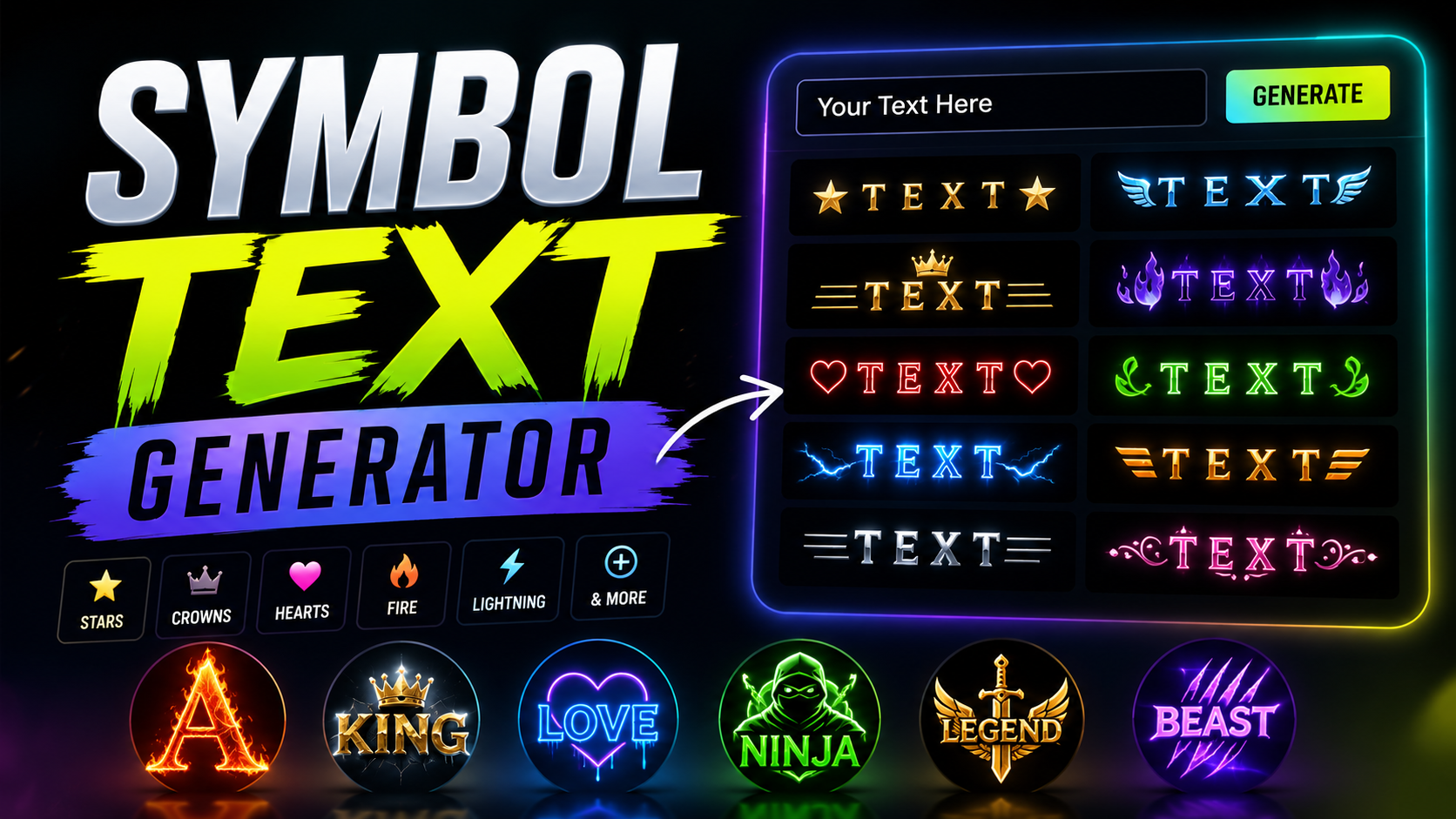
Type your text below to instantly generate cool, stylish text with symbols, emojis, and unique borders.
Stumbling upon stylish text on social media taught me more about unicode character encoding than any manual ever could. A generator quietly converts regular text into bold, italic, or script forms across platforms and devices.
The universal character encoding standard supports tens of thousands of characters, beyond old 256 characters limits. This range enables copy and paste of unicode symbols through any font, spanning symbol sets across devices and platforms.
The symbol text generator operates through Unicode — a character encoding international standard that assigns each character a unique numerical value. Simply type into the input box, pick font styles, and copy results from real-time previews.
Behind fancy text styles is JavaScript mapping Latin alphabet letters to Unicode characters — converting regular text into distinct symbol sets, ensuring devices on every platform seamlessly render your visually appealing, expressive text with full compatibility.
Type your text into the text box, scan hundreds of styles including bold, italic, cursive, old english, and monospace, copy the result, and paste it across social media or documents with your font style chosen.
Experienced users strategically switch between text styles — carefully selecting script for creative expression, underlined for emphasis, or sans-serif — to keep messages highly readable, then directly copy and paste results into chats, notes, or forums seamlessly.
Most creators underestimate how aesthetic fonts and text symbols deeply transform ordinary posts. Styling text deliberately signals effort, builds identity, and triggers real curiosity that pushes readers to engage rather than scroll past your content.
Experienced strategists know that unique fonts and carefully chosen symbols do more than decorate—they format communication with clear intention. Characters breaking visual monotony actively increase dwell time, comments, and shares across every major platform.
Digital art fully transforms when text symbols meet decorative elements. Designers leverage unicode symbols, geometric shapes, and intricate designs for aesthetic purposes. Combining characters with special symbol blocks creates remarkable visual compositions in creative projects.
Text art, ASCII, and text picture effectively redefine digital art expression. Aesthetic symbols, cute symbols, and keyboard symbols add text styling depth. Using a font generator, designers craft decorative characters that elevate creative visual projects.
Messaging apps like WhatsApp, Telegram, and Facebook Messenger changed how online messaging feels. A stylish message using symbol texts, emoticons, or fancy text turns an ordinary chat into a memorable greeting that reflects real personality.
I’ve seen Discord servers where cursive letters and emoji symbols drive stronger interactions than plain text messages. Special characters add attention, boost social media posts reach, and maintain consistency across SMS, iMessage, and Signal conversations.
Personal expression defines modern branding. A stylish name with fancy fonts on LinkedIn or Instagram bios creates first impressions that reflect professional identity, making stand out profiles that carry real visual appeal and elegant character.
Messaging and business communications grow much stronger when symbols and bold font reinforce a consistent brand. Captions, usernames, and content styled with aesthetic quality transform social media marketing into maximum impact personal storytelling that resonates.
Platform Compatibility
Platform-specific behavior varies across modern devices and operating systems. What displays consistently on one browser may appear broken elsewhere. Compatible unicode standard text ensures your cool fonts render correctly on all devices, everywhere without compromise.
Font variations emerge from different rendering engines across various platforms. TikTok, Facebook, and Twitter each interpret stylized text subtly differently. Widely supported international standard character encoding maintains consistent appearance, protecting important information on different devices.
Social Media
Trendy bold styles across social media platforms quietly define your personal brand identity. From Instagram profile to Facebook posts, the right aesthetic fonts build a distinctive, recognizable presence that naturally pulls online communities much closer.
Engaging captions and comments gain real power through cursive style or bold script text on TikTok and Reddit. Smart ads leverage marketing with stylish bios to improve readability and convert passive viewers into loyal followers.
Why Do Some Characters Look Different on Different Platforms?
Experiencing rendering failures firsthand taught me that modern operating systems interpret raw data uniquely. When local devices lack specific character representations, applications like X glitch, replacing unique regional variants with ugly, unreadable blank geometric squares.